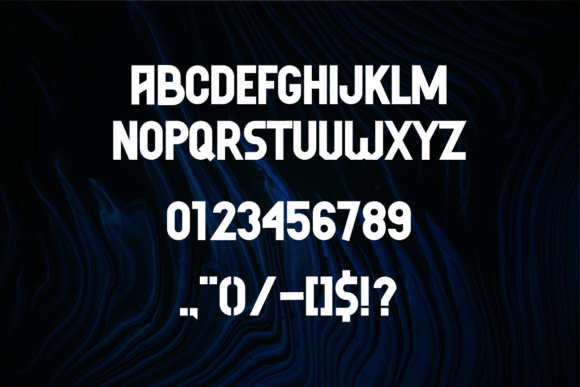
Introduction to Moluska Font
Have you ever stumbled upon a font that makes your design ideas come alive? For me, that moment happened when I discovered the Moluska Font. Its bold, thick letters seemed to scream out for attention, begging to be used in a creative project that needed a statement.
As a designer, I know how valuable it is to have a reliable design resource that can elevate your work. That’s exactly what the Moluska Font offers – a high-quality, free download that can be used to create stunning posters, flyers, and prints. With its transparent background, you can easily layer it over any image or design element to create a unique visual effect.
Key Features of Moluska Font
- The Moluska Font is a high-quality, free download design resource ideal for creative projects.
- It offers a unique and creative approach to typography with its distinctive letterforms.
- The font includes a transparent background, making it versatile for use on various backgrounds.
- The font size is scalable, allowing designers to adjust it to fit their specific design needs.
- Moluska Font has a high resolution of 300 DPI, making it suitable for use in print and digital media.
- It is a perfect design resource for designers, artists, and creatives working on various projects, from branding to graphic design.
Honest Review: Moluska Font
I recently had the chance to work with the Moluska Font, and I must say it’s been a great addition to my design arsenal. This high-quality font is a perfect fit for any creative project that requires a unique touch.
- High-quality glyphs and character sets
- Transparent background, making it easy to use in various design contexts
- Wide range of font styles and weights to choose from
The Moluska Font is perfect for designers looking for a unique and creative design resource. Its high-quality glyphs and transparent background make it a great choice for logos, branding materials, and other design projects.
- Limited support for certain languages and character sets
- Not ideal for large-scale, high-volume text projects due to font file size
Overall, I’m very impressed with the Moluska Font. It’s a great addition to any designer’s toolkit, and its high-quality features make it a worthwhile download. While it may have some limitations, it’s definitely worth considering for your next creative project.
Tips for Getting the Most Out of Moluska Font
Use the Moluska Font in conjunction with other design elements to create a cohesive and visually appealing design. Experiment with different font sizes, colors, and styles to get the most out of it.
The Moluska Font is a versatile design resource that can be used in a variety of creative projects, including business cards, brochures, and social media graphics. Its high quality and transparent background make it an ideal choice for designers looking to create professional-looking designs.